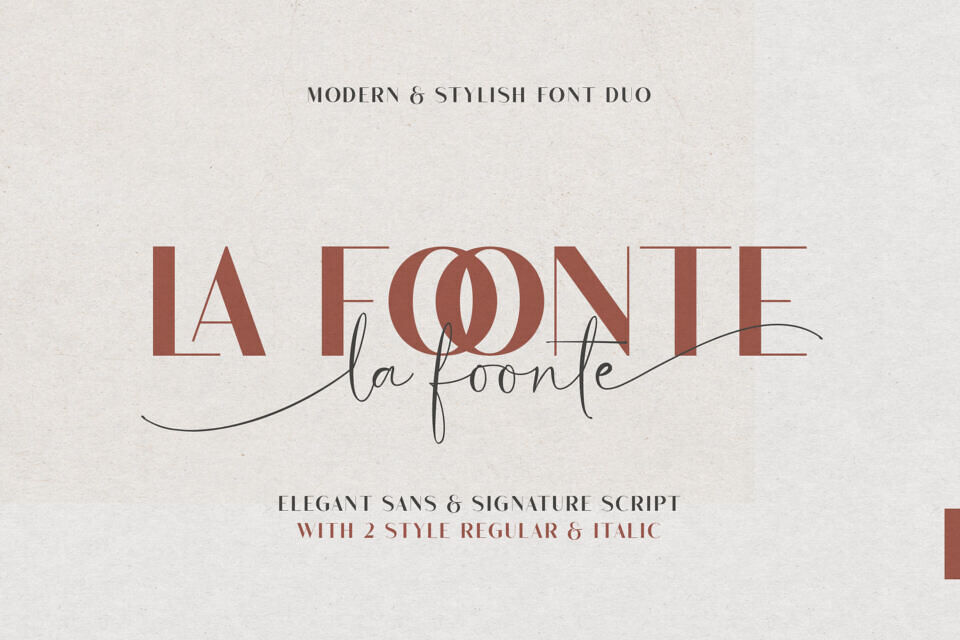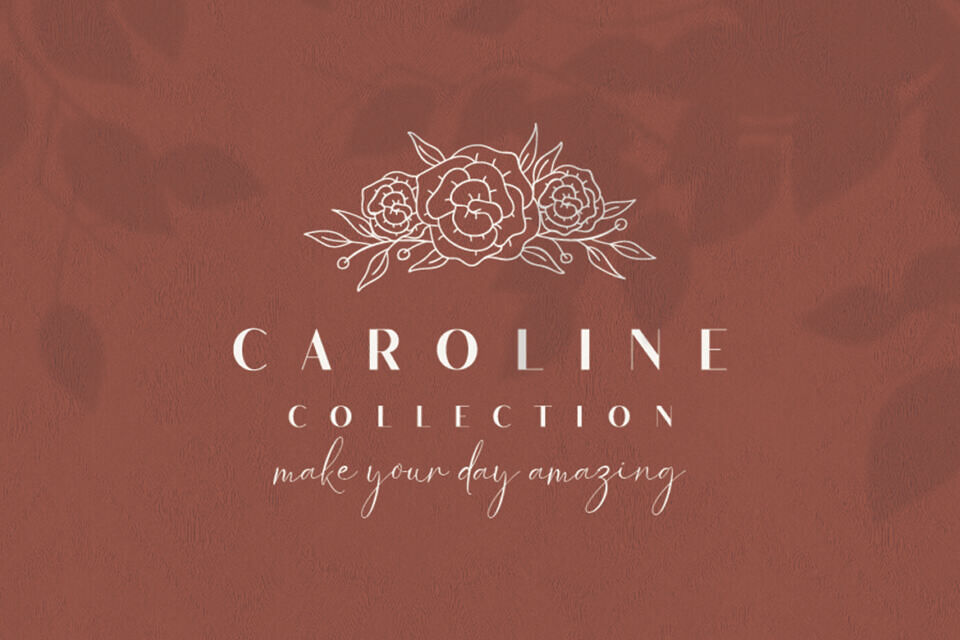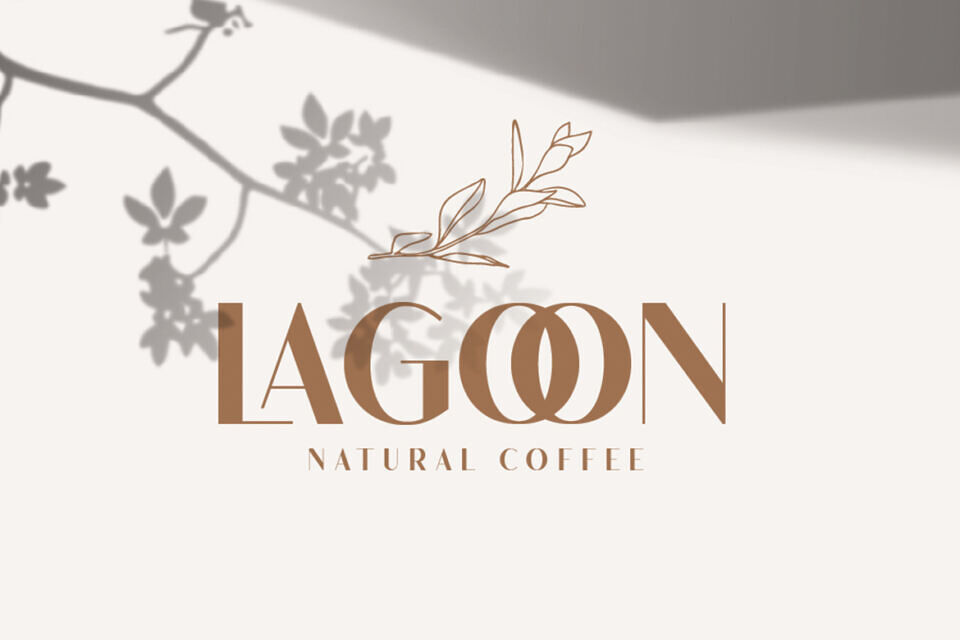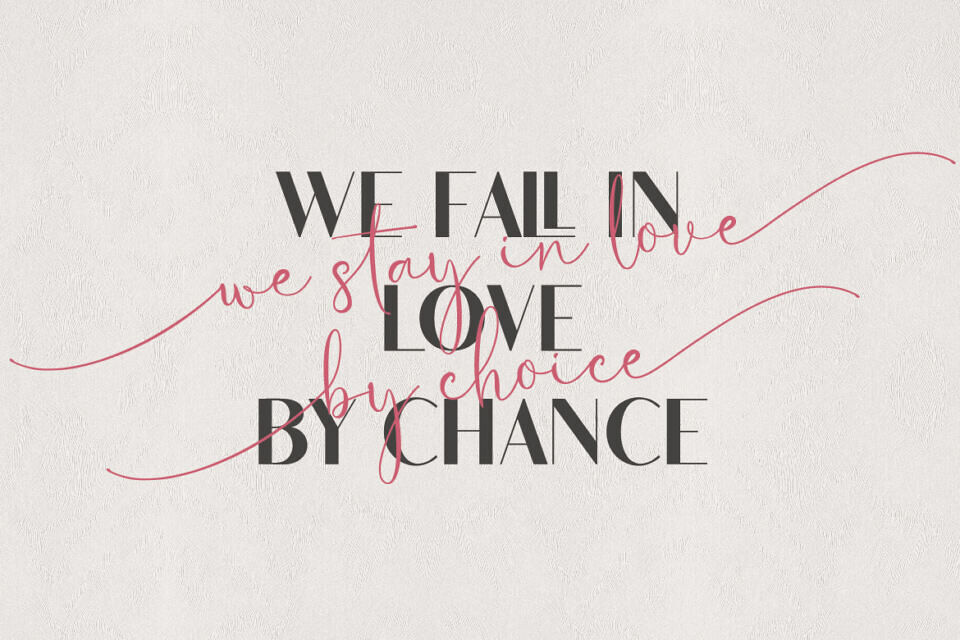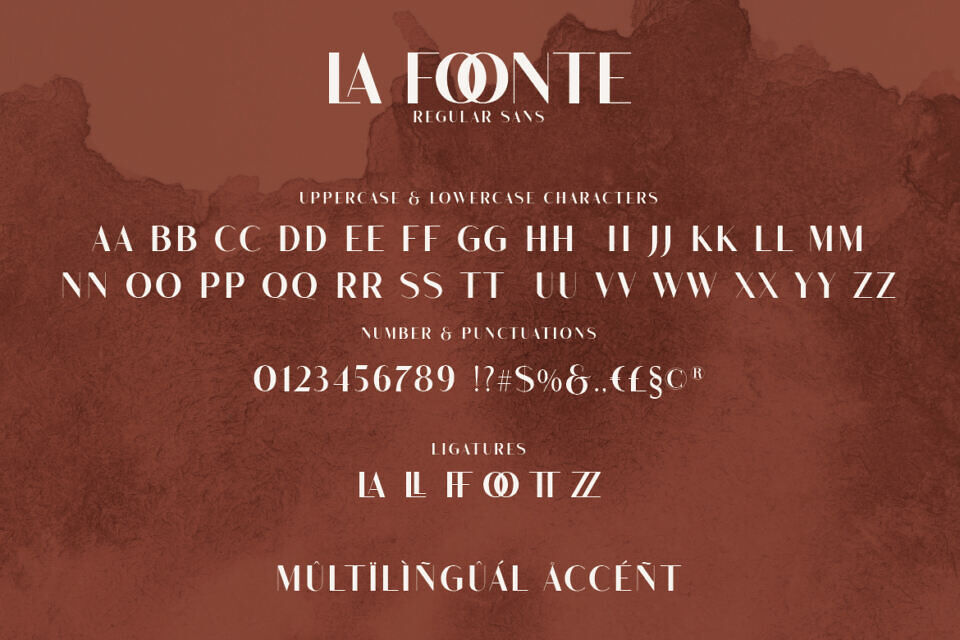
La Foonte Sans Font
Introducing La Foonte by Almeera Studio. La Foonte is a luxurious paired typography, consisting of an elegant script & stylish Sans that is equipped with ligature. This is perfect for branding, logos, invitation, signature and more.